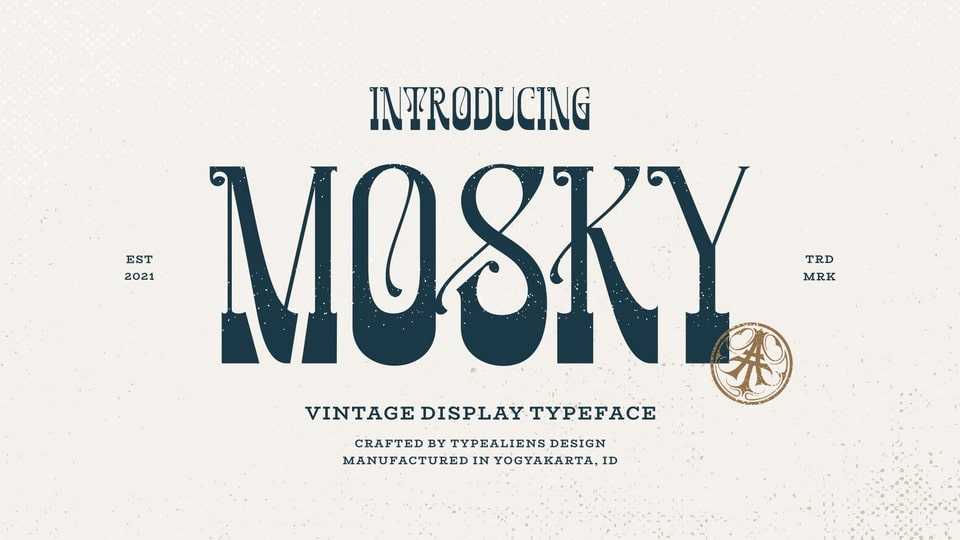
Download Mosky font, a vintage and distinct display typeface neatly crafted and highly detailed. Mosky font is perfect for creating logotypes, poster designs, logo badges etc.
Designer: Typealiens